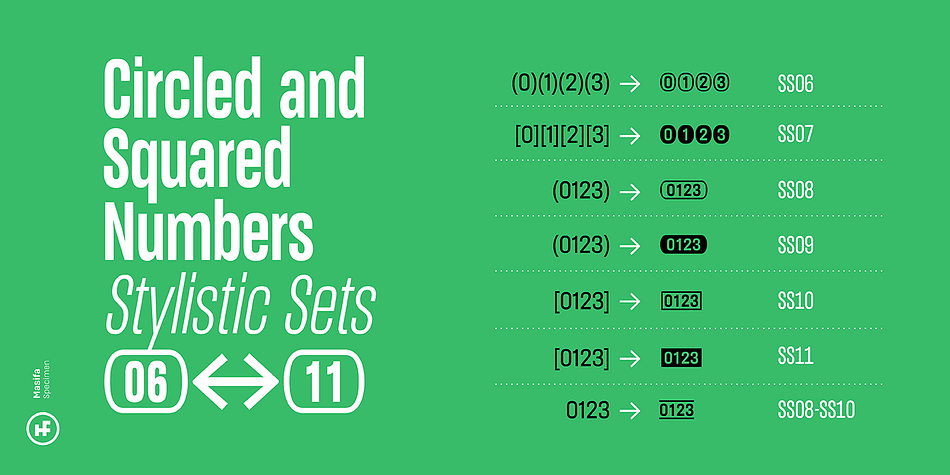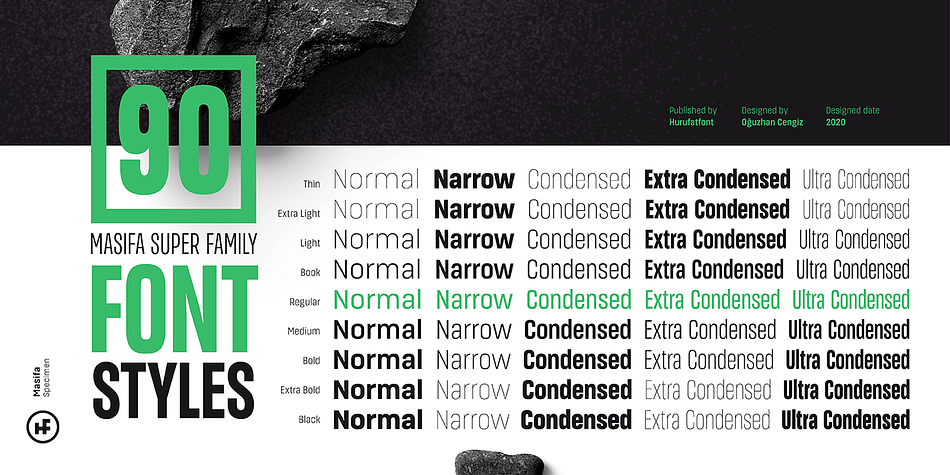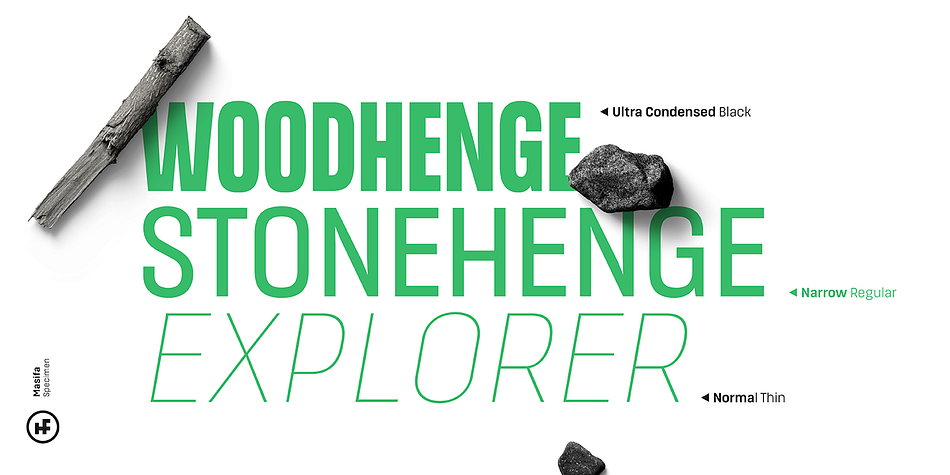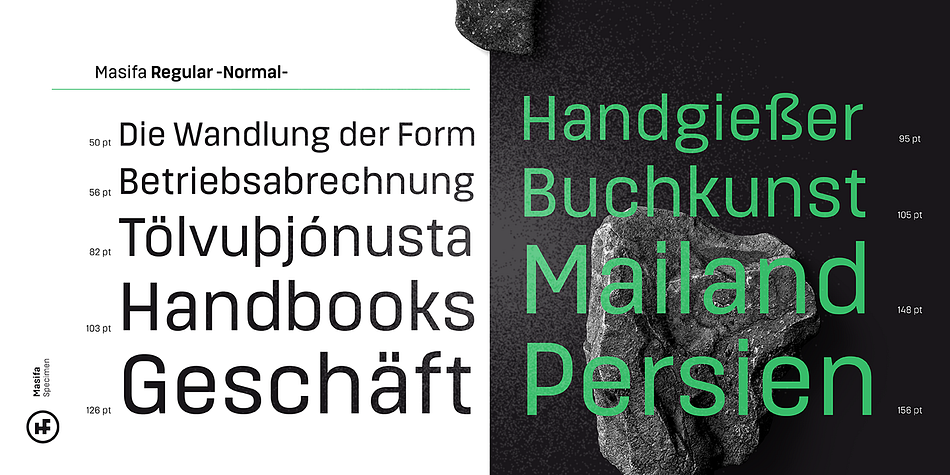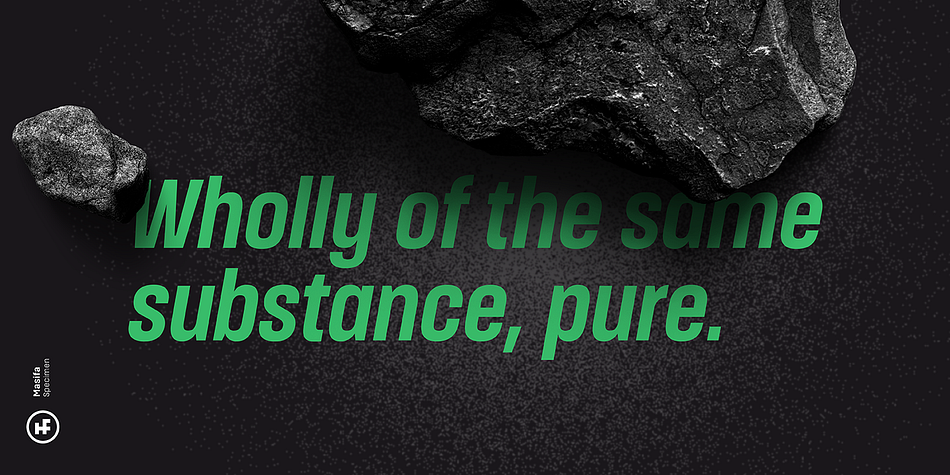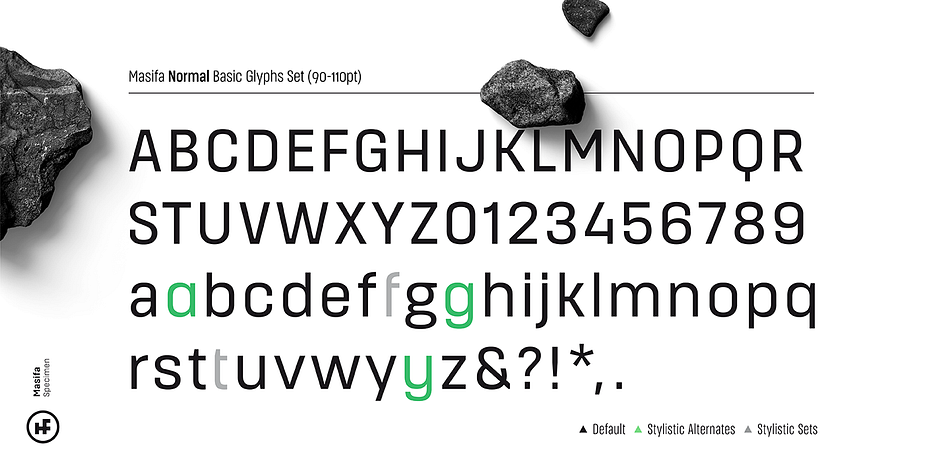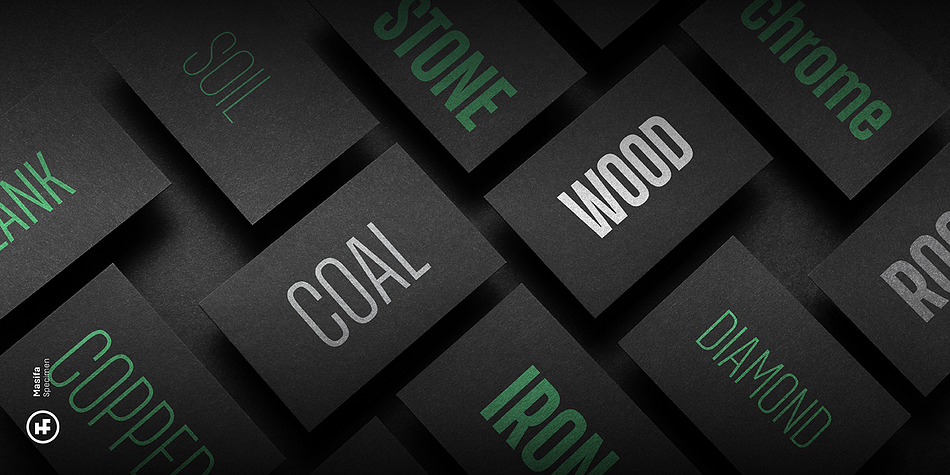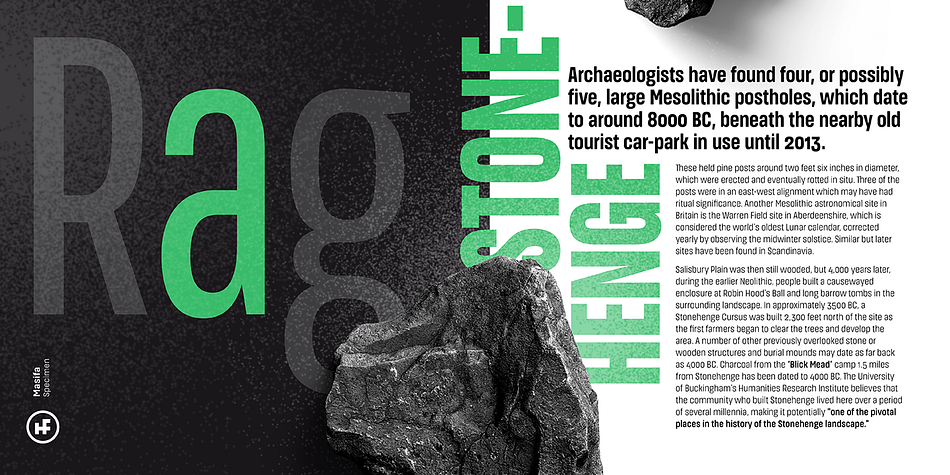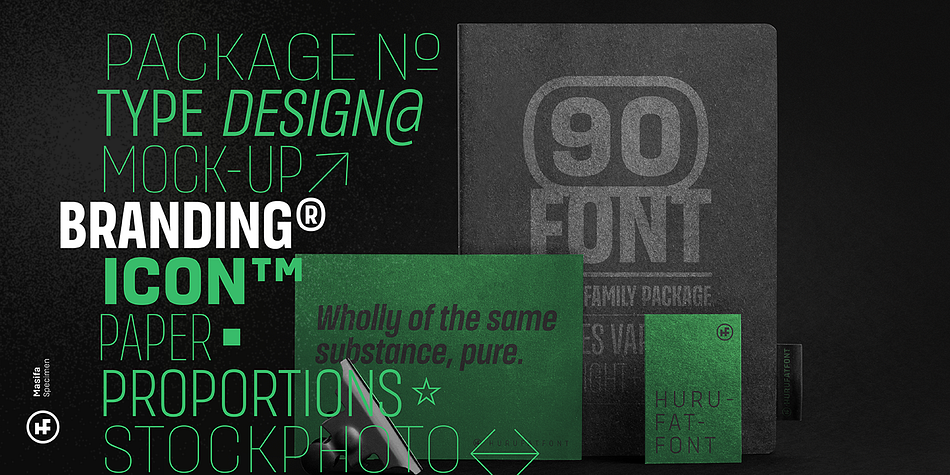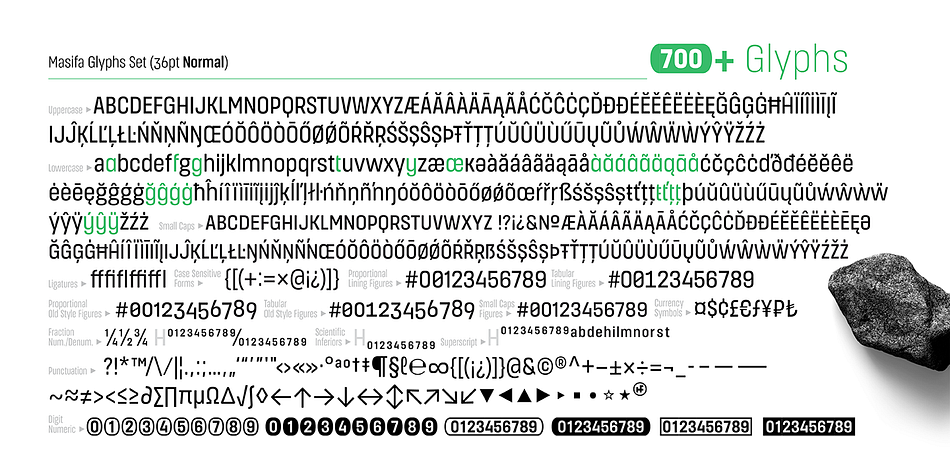
Designed by Oğuzhan Cengiz, Masifa is a sans serif font family. This typeface has ninety styles and was published by Hurufatfont Type Foundry.
Masifa has compact, simple, functional and neutral body structure.
It has 5 widths from Normal to Ultra Condensed.
Each width includes 9 weights from Hairline to Black and their matching italics.
Also, every weight includes rich OpenType Features like Small Caps and custom number styles.
Due to its large family, it is ideal for a wide range of usage from large-scale designs to small product labels.